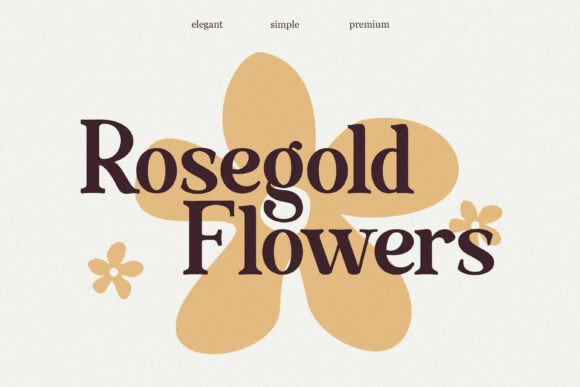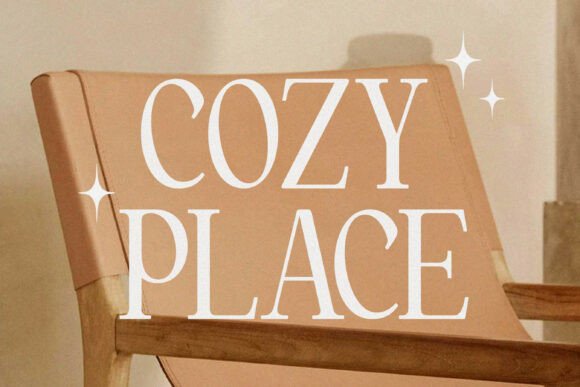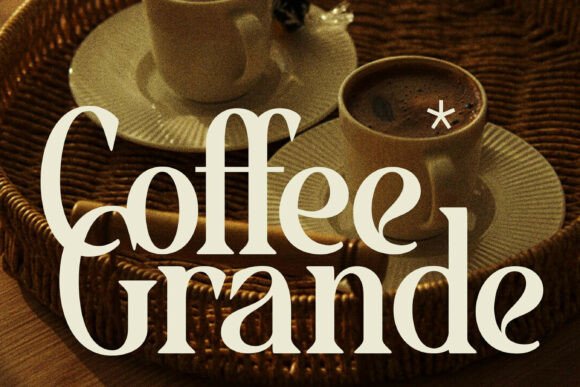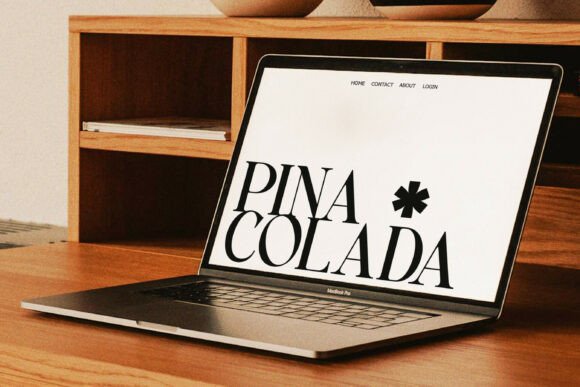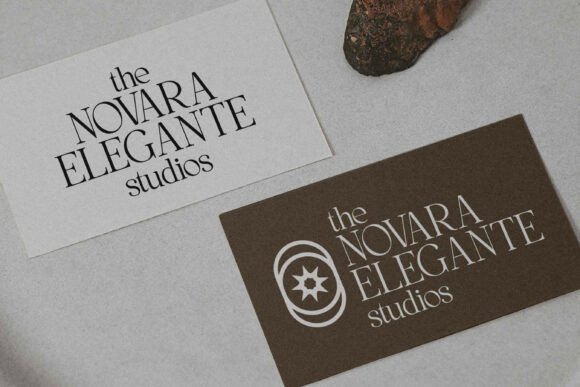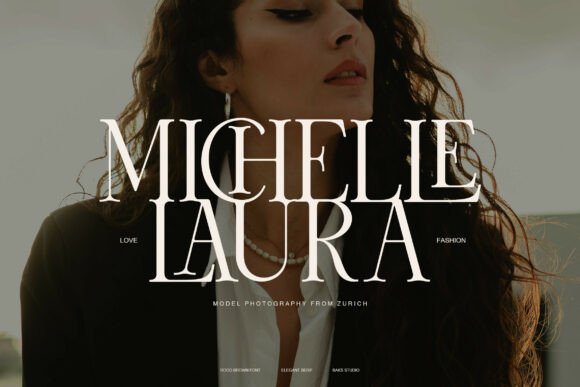
Introduction to Exclusive Serif Retro Bundle Font
Experience the elegant fusion of timeless sophistication and vintage charm with the Exclusive Serif Retro Bundle.
The Exclusive Serif Retro Bundle font collection is a curated treasure trove for lovers of vintage aesthetics This Exclusive Serif Retro Bundle typeface set includes 8 distinct fonts, such as Lemino, Vorina, and Silver Chair, each capturing a different facet of classic retro style.
Key Features of Exclusive Serif Retro Bundle Font